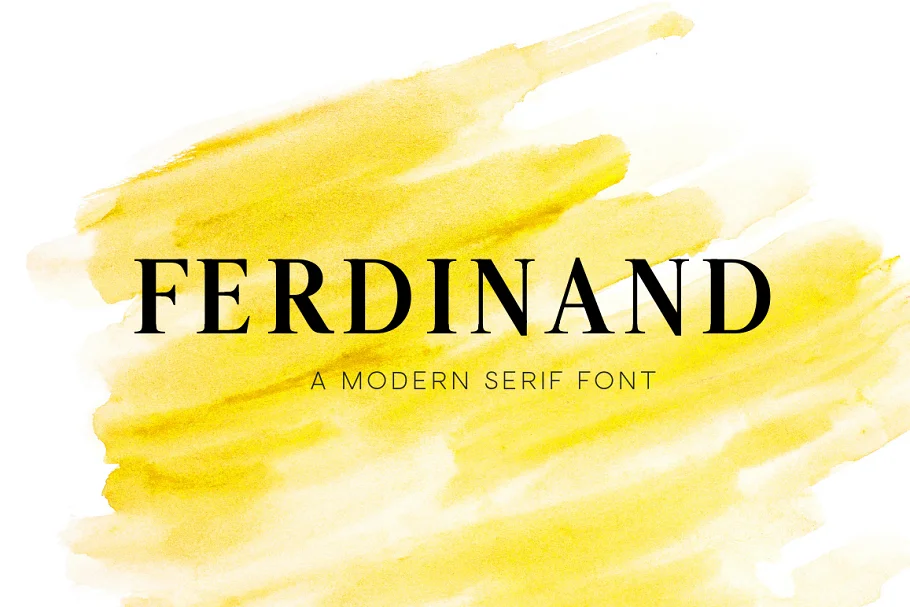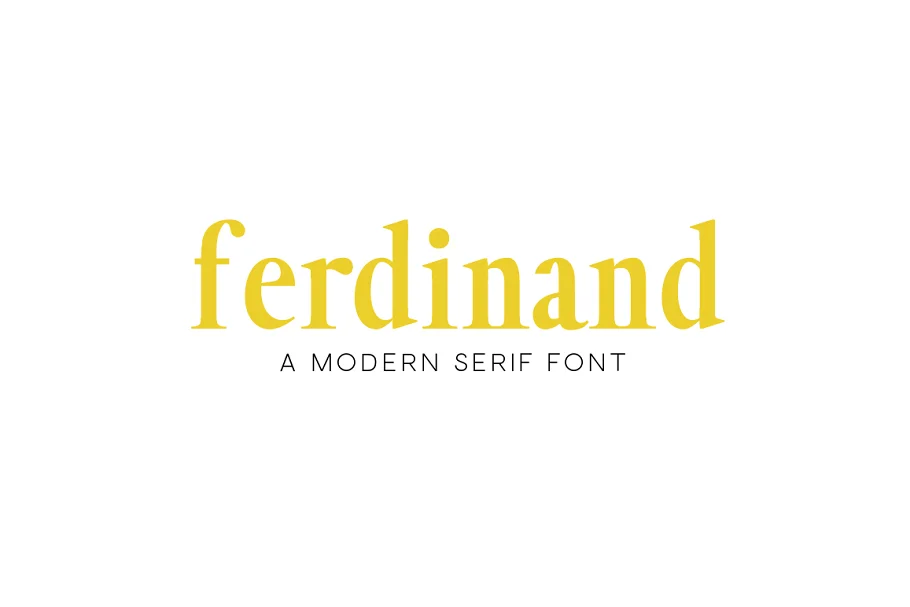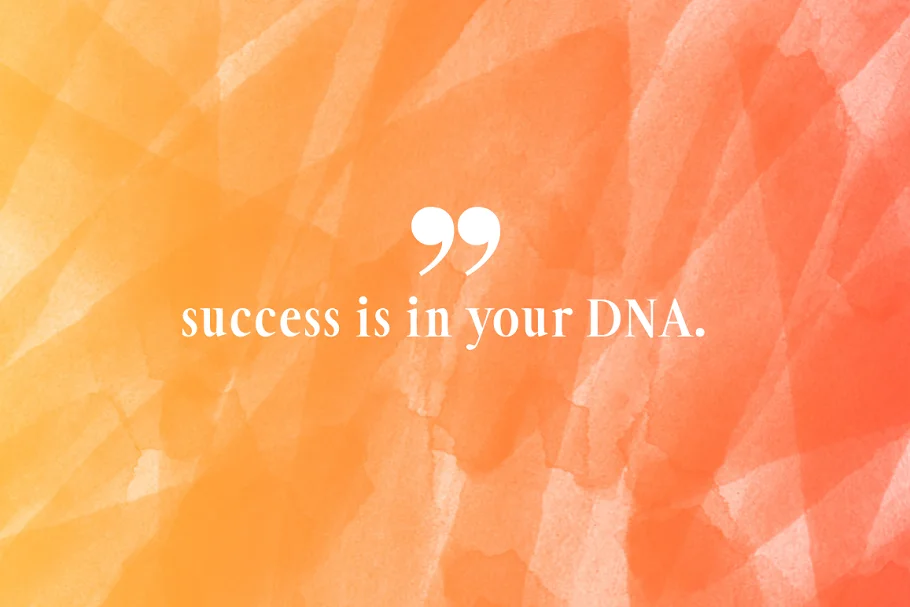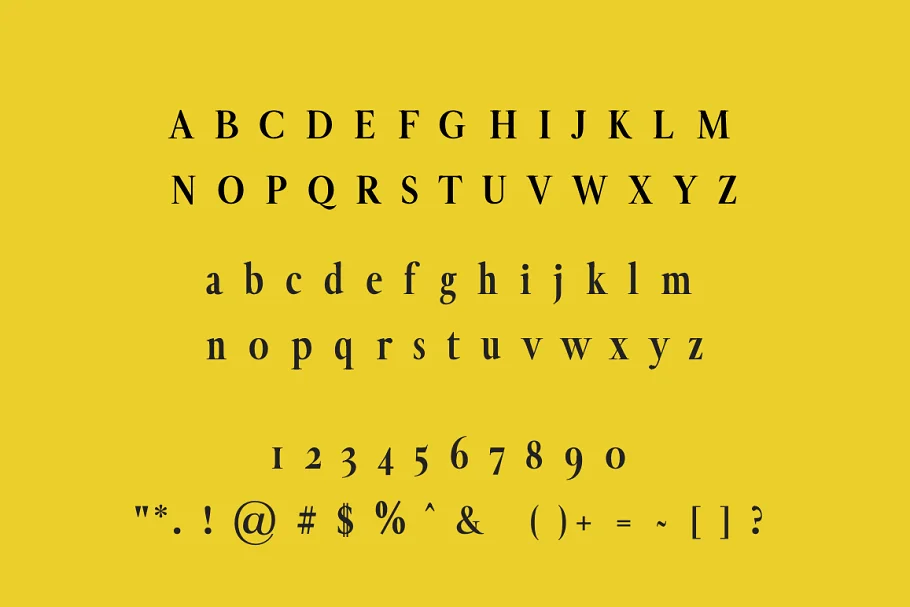
About the Ferdinand Modern Serif Font
Introducing Ferdinand a fun serif font created by Black Dahlia Press. Great for web design, logo projects, and more.